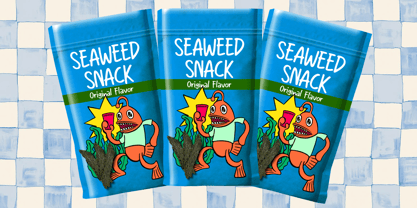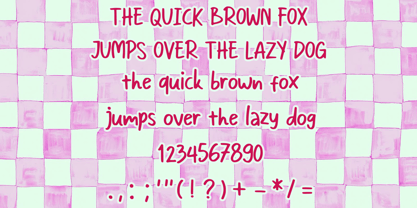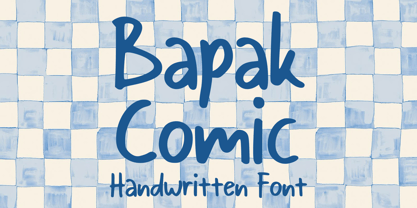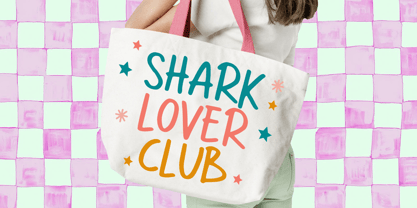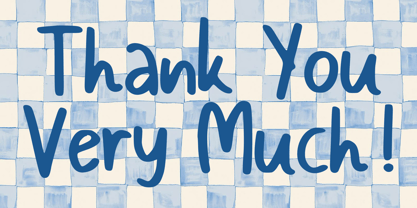
Bapak Comic
The Bapak Comic Font Family was designed by Gabriel Valentinus and published by Mvmet. Bapak Comic contains 1 styles. More about this family
Bapak Comic is a fun and playful comic marker font. It will elevate a wide range of design projects to the highest level. You can use this font for many design ideas such as stickers, t-shirt designs, amazing logo designs, magazine or book covers, comics, cartoon drawings, and many more. This font will add a super cool touch to your designs!